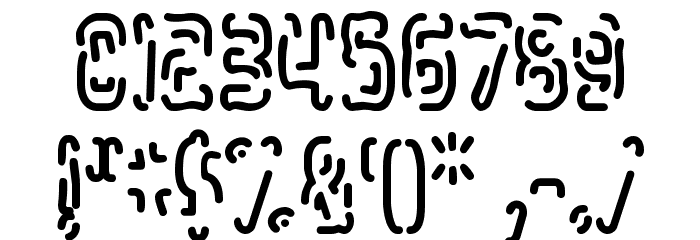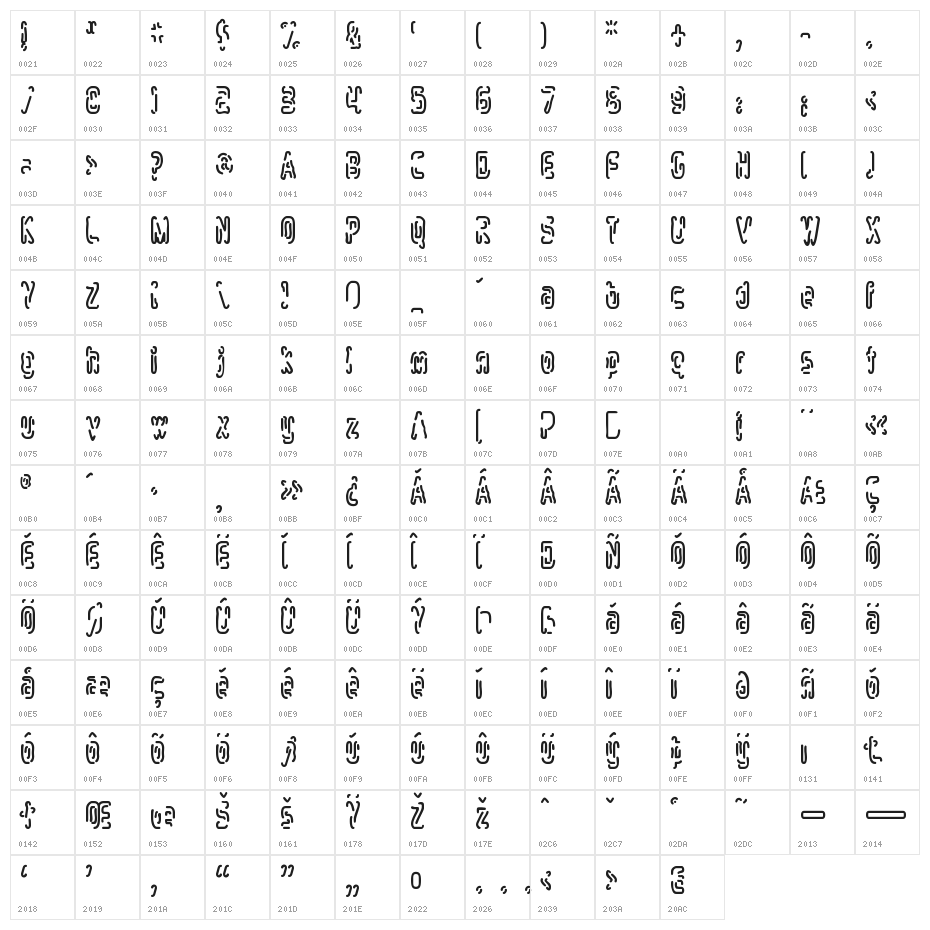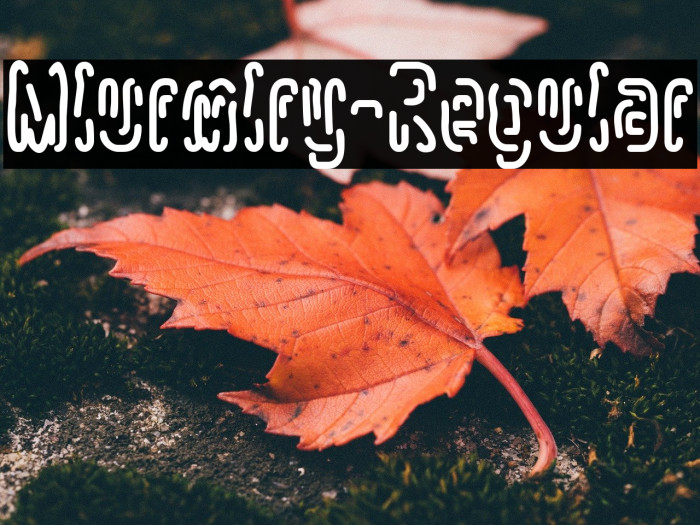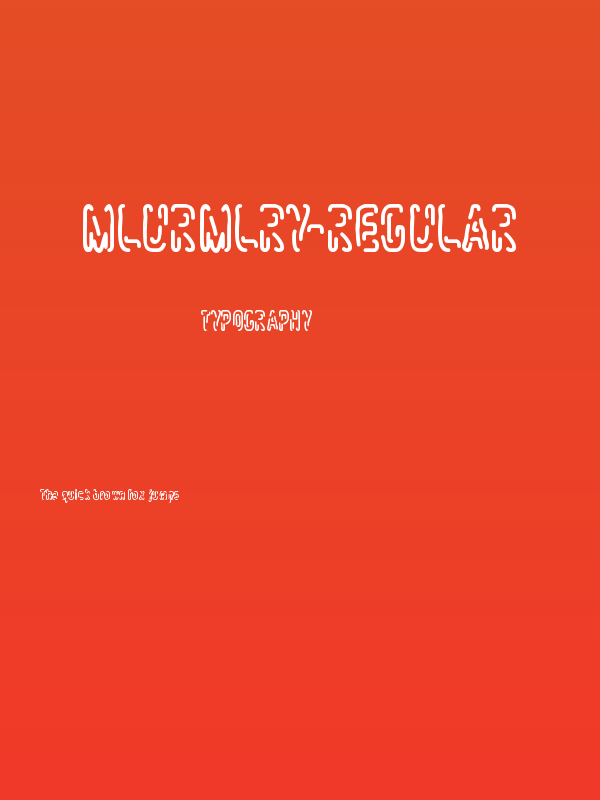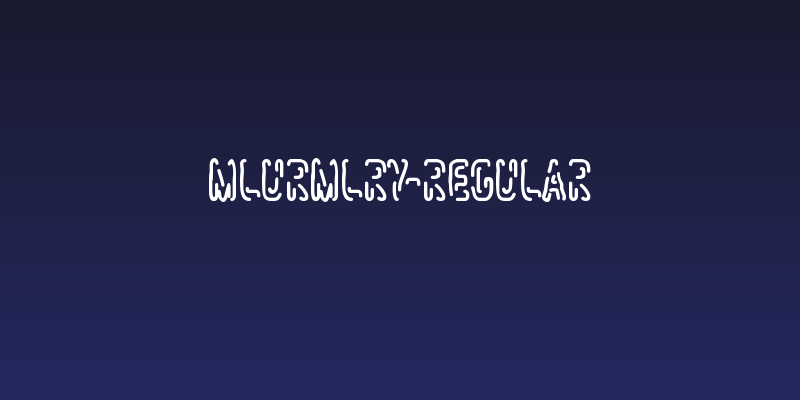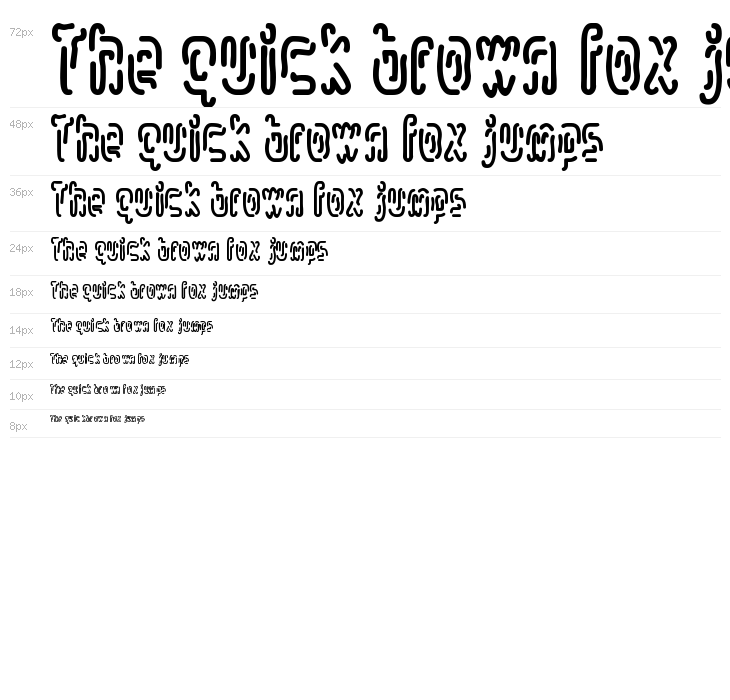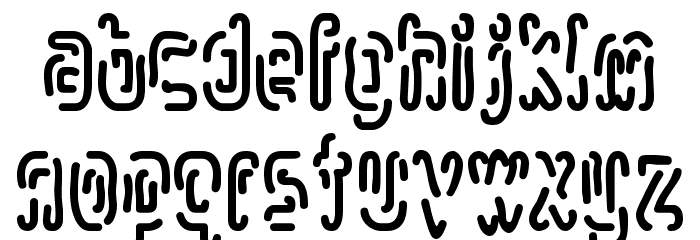
Mlurmlry-Regular Font
Mlurmlry-Regular Description
This font features a unique, decorative style with bold, interconnected strokes that create a sense of movement and fluidity. Each character is crafted with a playful, artistic flair, making it stand out with its intricate design. The uppercase and lowercase letters maintain a consistent theme, with rounded edges and a bold presence. Numbers and special characters are equally stylized, ensuring a cohesive look across all elements. This font's distinct appearance makes it ideal for creative projects that require a touch of whimsy and originality.